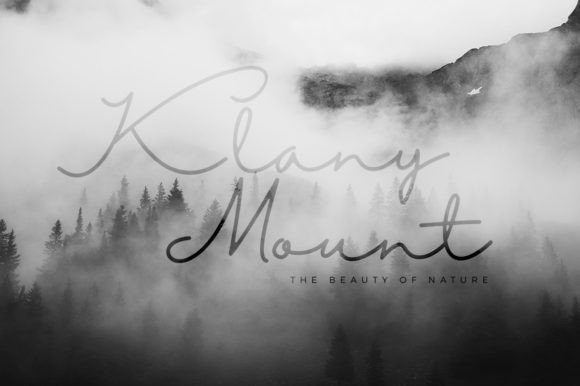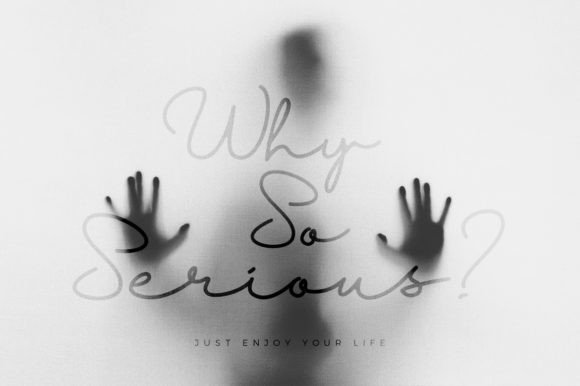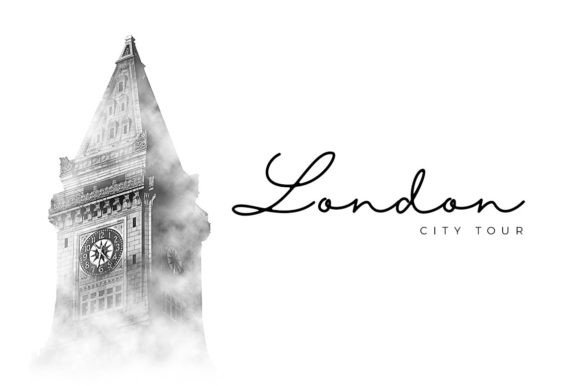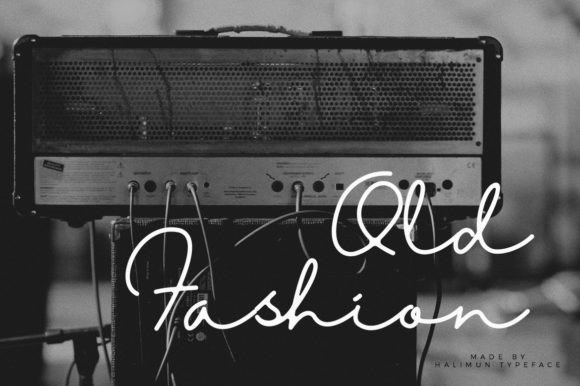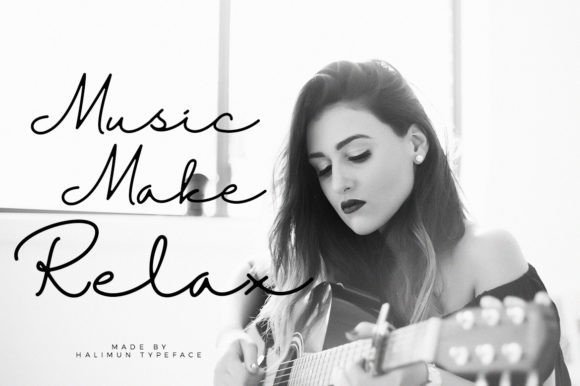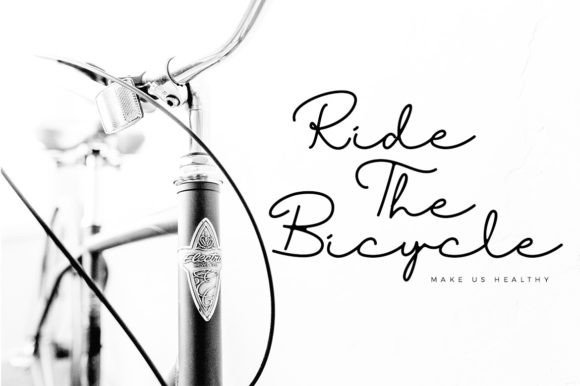
Introducing Halimun Font: Elevate Your Designs with Modern Elegance
In the world of typography, a font can make or break a design project. If you’re on the hunt for a typeface that exudes sophistication, modernity, and elegance, look no further than Halimun Font. This sleek and refined script font is specifically designed to add a touch of luxury to any creative endeavor, making it an ideal choice for designers, crafters, and branding enthusiasts alike.
The Distinctive Characteristics of Halimun Font
Halimun Font boasts a range of distinctive features that set it apart from other script fonts on the market. Its flowing lines and unique flourishes give it a stylish personality that’s both contemporary and chic. Whether you’re working on a branding project, advertising campaign, or simply looking to add some visual interest to your designs, Halimun Font is the perfect choice.
Designed for Legibility and Readability
One of the standout features of Halimun Font is its exceptional legibility. Even at small sizes, this font remains clear and easy to read, making it perfect for use in a variety of applications, from business cards to billboards. This legibility ensures that your message is conveyed effectively, without sacrificing style or sophistication.
Ideal for Branding, Advertising, and More
Halimun Font is an incredibly versatile typeface that’s suitable for a wide range of design projects. Whether you’re working on a branding campaign, creating advertising materials, or simply looking to add some visual interest to your website or social media channels, this font is the perfect choice. Its modern elegance and sophistication make it an excellent fit for:
- Branding and logo design
- Website and social media graphics
- Stationery and office supplies
- Create unique and eye-catching typography
Why Choose Halimun Font?
With so many script fonts on the market, it can be difficult to choose the right one for your design project. Here are just a few reasons why Halimun Font stands out from the crowd:
- Unique and stylish design
- Exceptional legibility and readability
- Versatile and suitable for a wide range of design projects
- Perfect for branding, advertising, and more
In conclusion, Halimun Font is a sleek and sophisticated script font that’s perfect for adding a touch of modern elegance to any design project. With its flowing lines, unique flourishes, and exceptional legibility, this font is an excellent choice for designers, crafters, and branding enthusiasts alike. Whether you’re working on a branding campaign, advertising materials, or simply looking to add some visual interest to your designs, Halimun Font is the perfect choice. So why wait? Download Halimun Font today and elevate your designs to new heights!